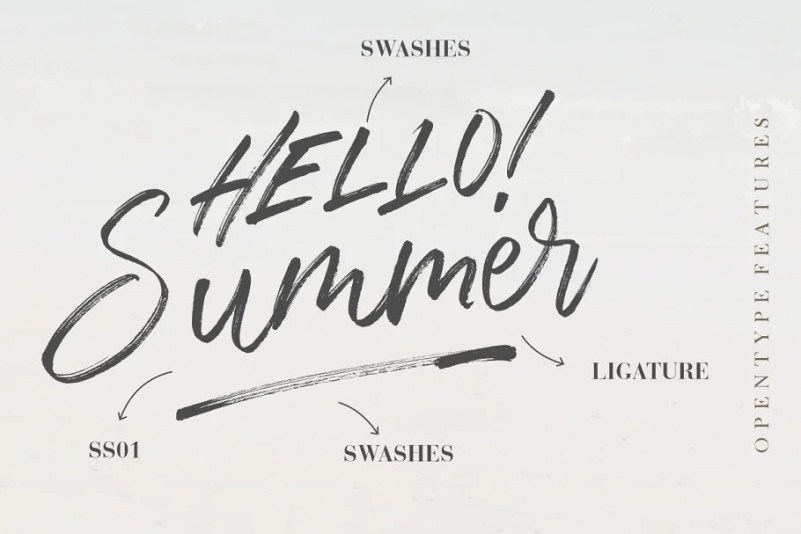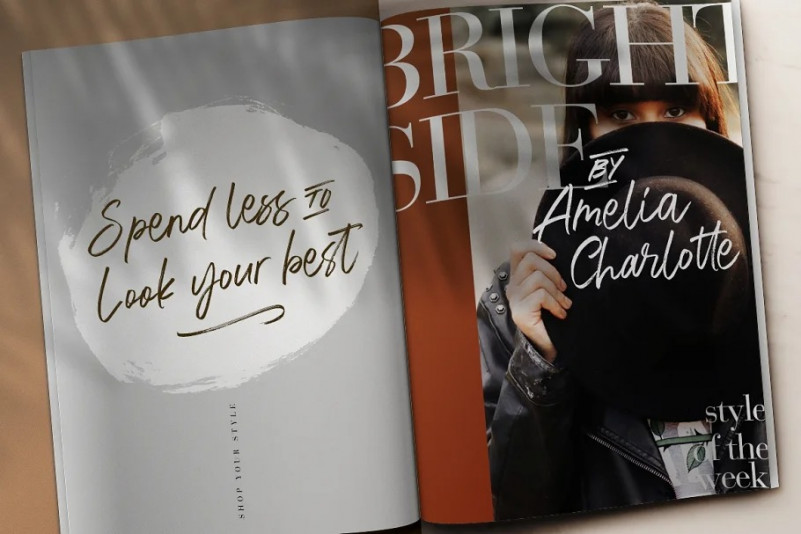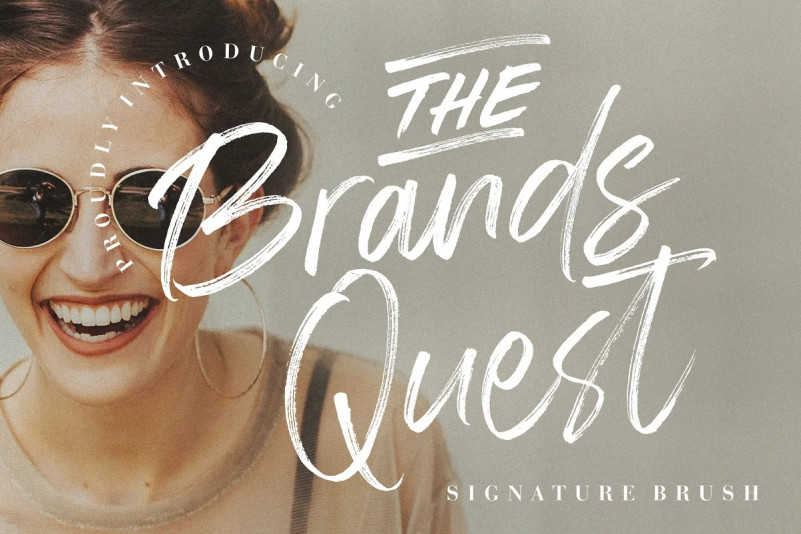
The Brands Quest Brush Font
The Brands Quest is a signature font with a textured brush can be one of your collection.
The Brands Quest is perfect for branding projects, logo, wedding designs, social media posts, advertisements, product packaging, product designs, label, photography, watermark, invitation, stationery and any projects that need handwriting taste.